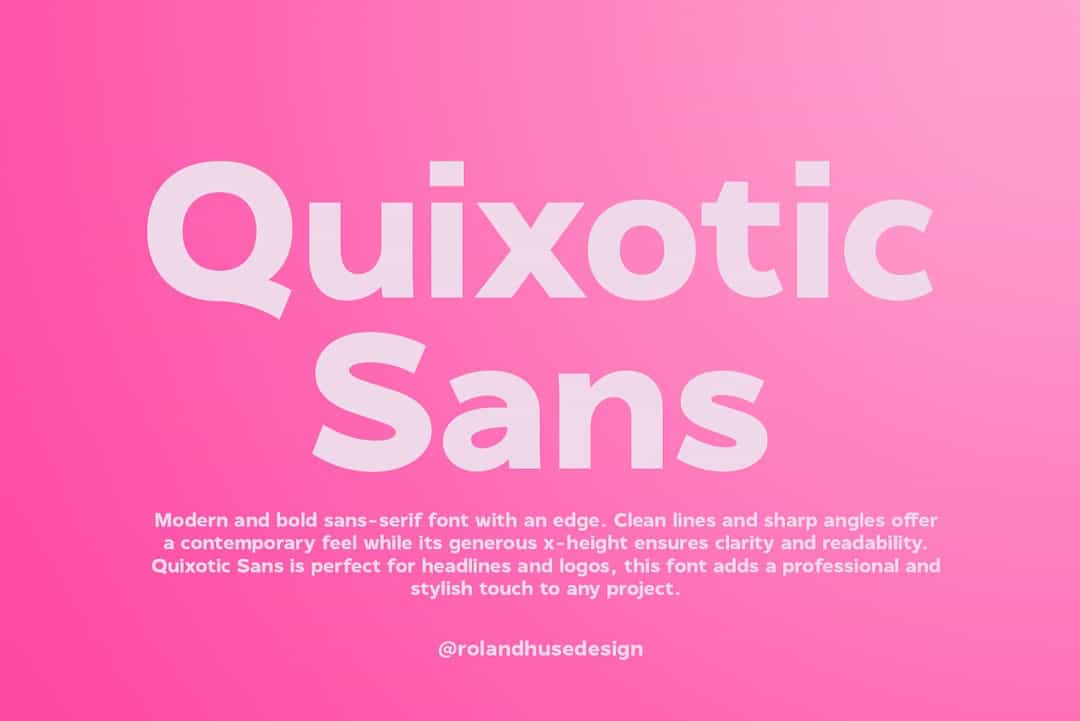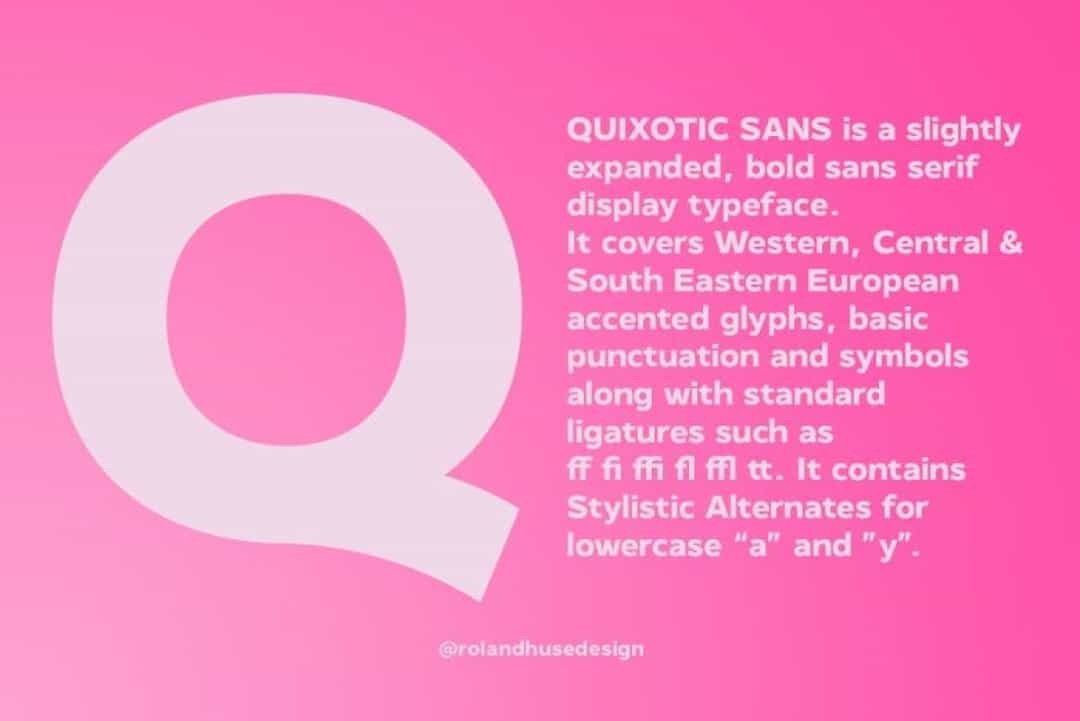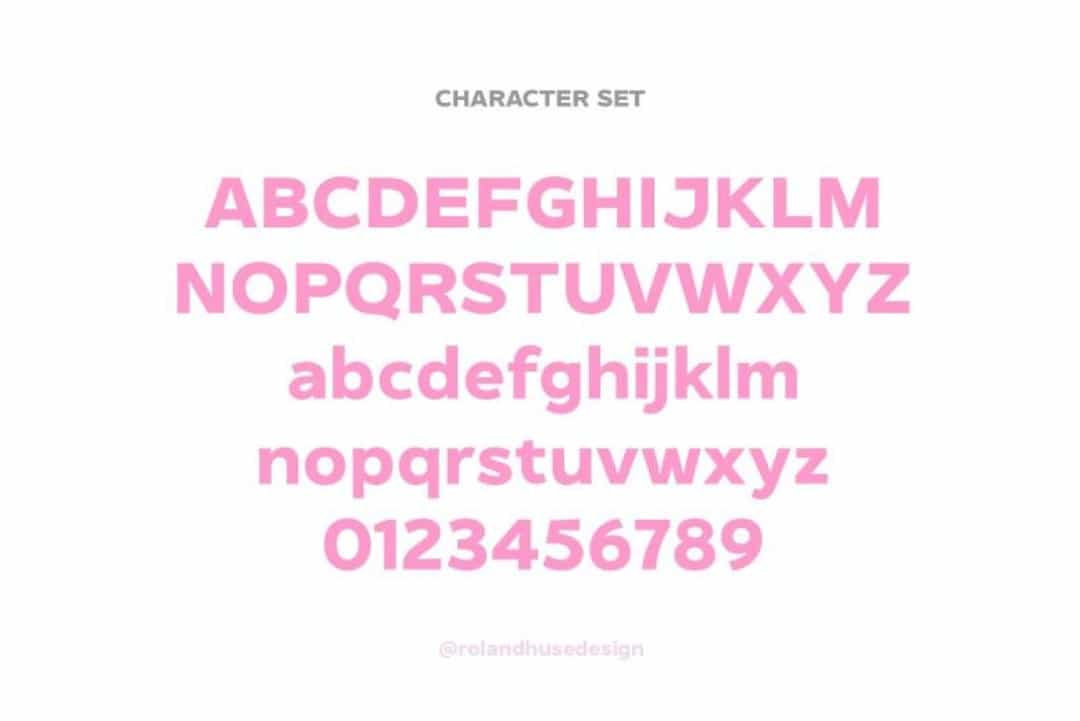
Quixotic Sans is an imposing font without serifs that stands out. This font contains Western, Central and South Eastern European accented characters; basic punctuation currency symbols; standard ligatures like fi Ff fi Ffl fi FF fi and even TT; there are stylistic alternatives with lowercase letters “a” and “y”. Quixotic Sans is best used in large-sized texts like brochures ads posters logos posters headlines or headlines.